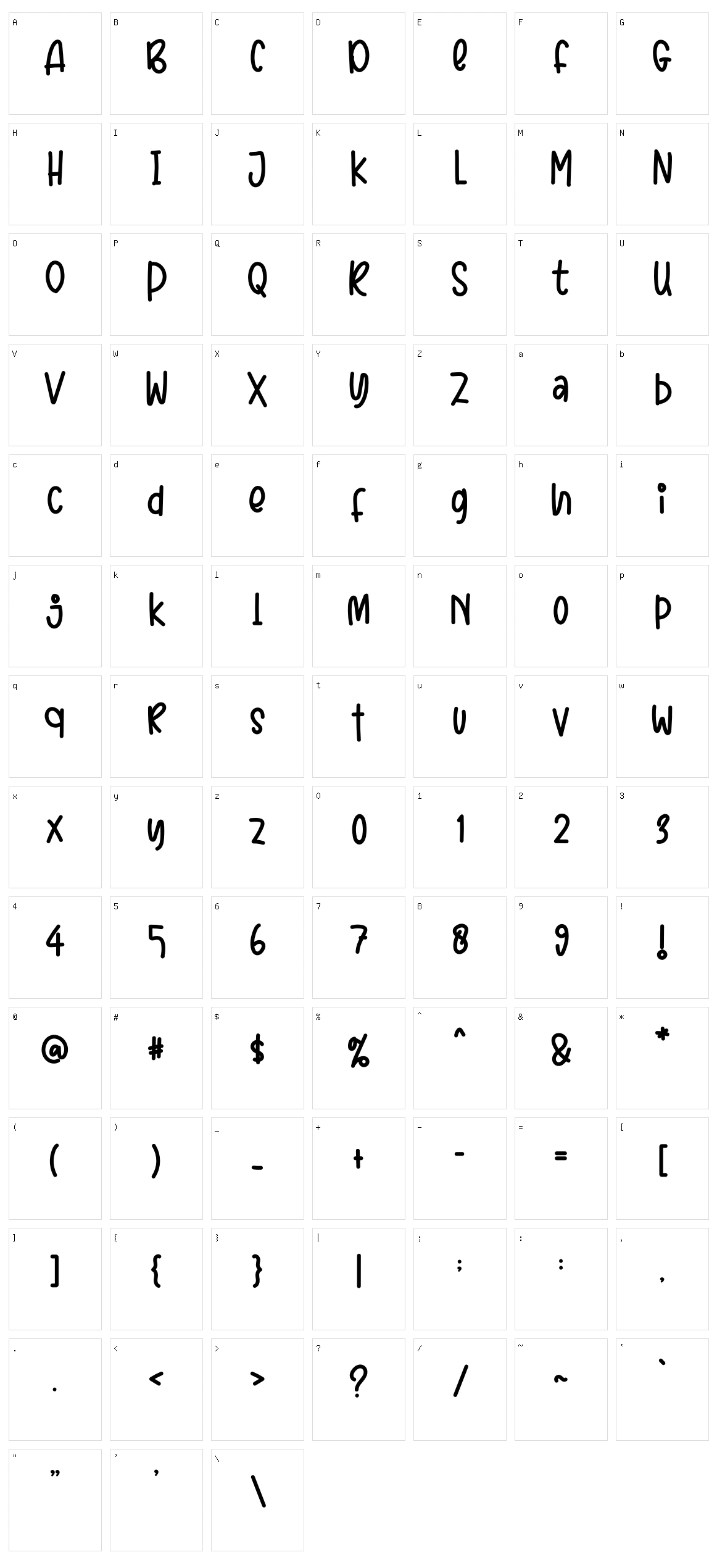
The free font Corn Kernels is carefully designed by Inermedia Studio, showcasing a thoughtful balance of creativity and usability and falls under the Script font style. When you download the ZIP file, it contains only 81.73 KB of font files, making it lightweight and quick to download. Please review the license details below to understand permitted usage and distribution rights. If license information is not available, we recommend using this font for personal projects only or contacting the author directly for commercial usage permissions.